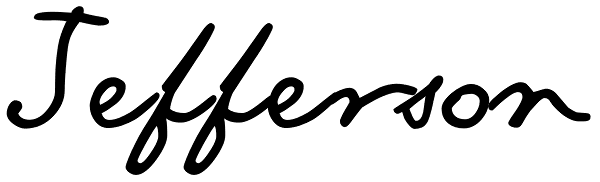
Jefferson
The script font “Jefferson” is based on real handwriting of Thomas Jefferson. Luckily there is a draft of original text of the Declaration of Independence written by Jefferson available . It was used as a primary source for this font. The Jefferson...